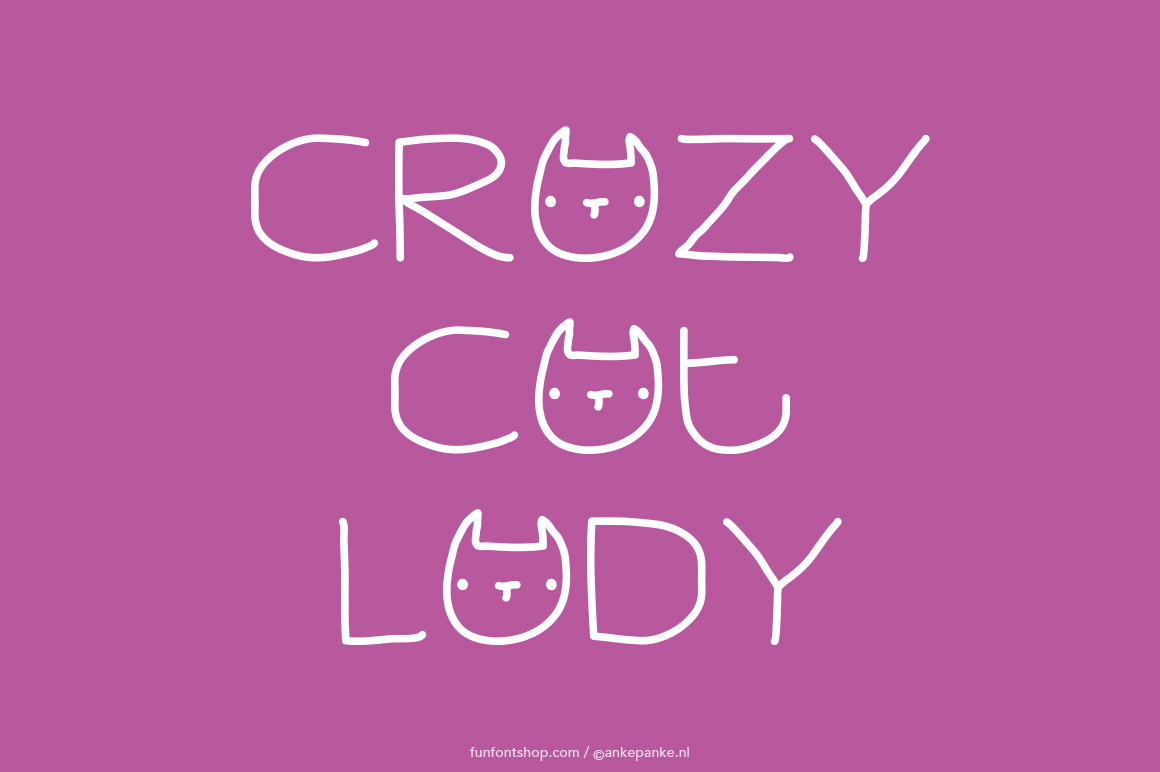
Crazy Cat Lady Font
This sweet font was especially created for the crazy cat ladies, with instead of the A a cat face (there's also a normal A) and you can mix them up, there are 3 different faces. Doesn't that just make you purr? This font is created digitally, so big or small: it's always clean.
- Letters Combination of upper- and lowercase and numbers
- Punctuation !?#%&*±+=-_,.:;'"/|@([«»])^´`~¨
- Extra heart, cat paw and 3 different cat faces